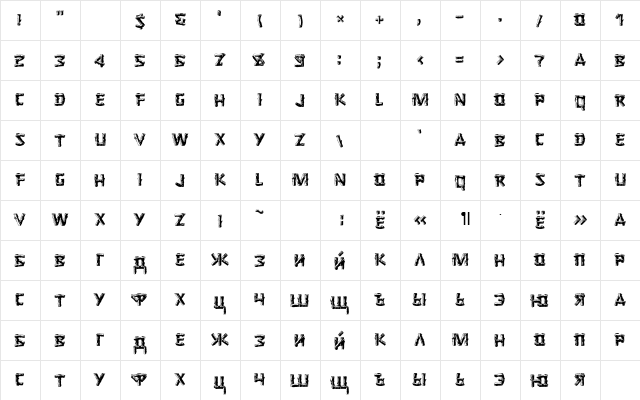
Logger Cyr Regular
Design Context for Logger Cyr Typeface
Logger Cyr is a composed and adaptable typeface that performs quietly and consistently across a wide range of design contexts.